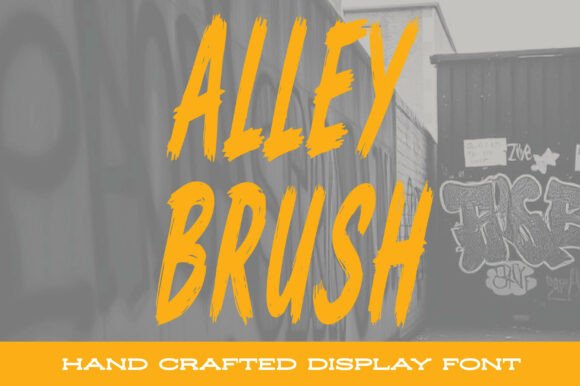
The Unmistakable Vibe of Alley Brush Font
I’ll never forget the design project that led me to discover the Alley Brush font. I was working on a branding campaign for a streetwear label, and I needed a font that captured the gritty, urban essence of the brand. I had spent hours scouring font libraries and marketplaces, but nothing seemed to fit the bill. That was until I stumbled upon Alley Brush – a bold, expressive font that seemed to scream “street culture” and “urban rebellion.” In this article, I’ll share my experience with Alley Brush, its features, and how to make the most of it in your designs.
First Impressions: A Personal Review
As soon as I opened Alley Brush, I knew I had found something special. Here’s what I love about this font:
- ✨ Bold and expressive: Alley Brush is not for the faint of heart. Its strong strokes and raw, hand-painted aesthetic make it perfect for designs that need to make a statement.
- ✅ Perfect for urban designs: From graffiti-style posters to skate culture branding, Alley Brush has a natural affinity for urban and streetwear designs.
- 🔥 High-impact headlines: Whether you’re designing a poster, t-shirt, or album cover, Alley Brush is guaranteed to turn heads.
Of course, no font is perfect, and Alley Brush has a few quirks:
- ⚠️ Limited legibility at small sizes: Due to its bold, expressive nature, Alley Brush can be difficult to read at small font sizes. Use it for headlines and titles, but consider a simpler font for body text.
- 🤔 Some glyphs may require manual adjustment: Depending on your design, you may need to manually adjust certain glyphs to get the perfect fit. But trust me, it’s worth the extra effort.
The Story Behind Alley Brush
Alley Brush was inspired by the gritty streets of urban America. Its creator, a freelance designer, wanted to capture the raw energy and rebellious spirit of street culture in a font. The result is a bold, expressive font that’s perfect for designers who want to add a touch of urban grit to their designs.
| Font Name | Alley Brush Font |
| Author | stompstock |
| What type of designs is Alley Brush best suited for? | Alley Brush is perfect for urban designs, streetwear branding, graffiti-style posters, album covers, and modern apparel. |
| Is Alley Brush available in different weights or styles? | Currently, Alley Brush is available in a single weight, but its bold, expressive nature makes it perfect for a variety of designs. |